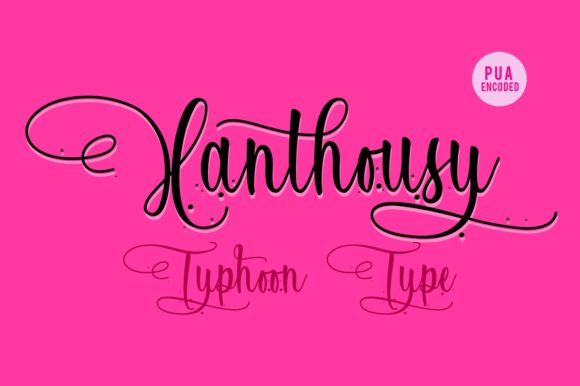
HomeScript FontsXanthousy Font Script Fonts Xanthousy Font FacebookXPinterestWhatsApp About Xanthousy Font Xanthousy is a dynamic and bold script with rich swashes. Use it to make any design project stand out. DOWNLOAD ON CREATIVE FABRICAThis font is sold and delivered by Creative Fabrica. Font Canyon may earn a commission if you buy through this link. People also explored Autumn Font Sebiora Font Coffee Christmas Font Anastasya Script Font Handwritten Font Minista Amsterdam Font Mastyr Font Rainbow Ocean Font 321 0 TagsXanthousy Font Previous articleAnderson Silva FontNext articleRotten Brothers Font LEAVE A REPLY Cancel reply Comment: Please enter your comment! Name:* Please enter your name here Email:* You have entered an incorrect email address! Please enter your email address here Website: Save my name, email, and website in this browser for the next time I comment. Personal Use Free Rookie Mastering Personal Use Free Read more about this font Little Pixel Personal Use Free Read more about this font Black Friday Personal Use Free Read more about this font Spectrashell Personal Use Free Read more about this font BLOG The 10 Best Handwriting Fonts to Add Personality to Your Designs 10 of the Best Handwriting Fonts for Adding Personality to Your Designs There will undoubtedly be no other better choice than handwriting fonts to give... Transform Your Website: Elevate Your Typography with 7 Best Web Font Generators Best Fonts for YouTube Videos: Make Your Thumbnails Stand Out To increase your work productivity, choose the most readable fonts.